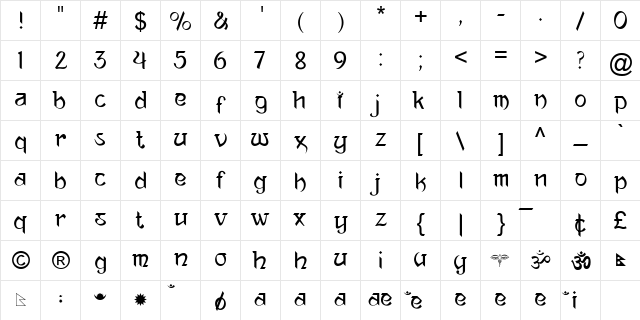
Ananda Neptouch Regular
| Foundry | Ananda K. Maharjan |
| Designer | Ananda K. Maharjan |
Design Context for Ananda Neptouch Typeface
Ananda Neptouch is a composed and adaptable typeface that performs quietly and consistently across a wide range of design contexts.